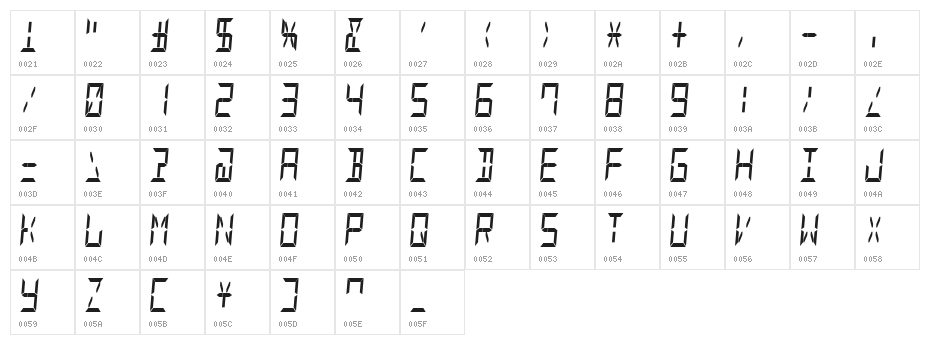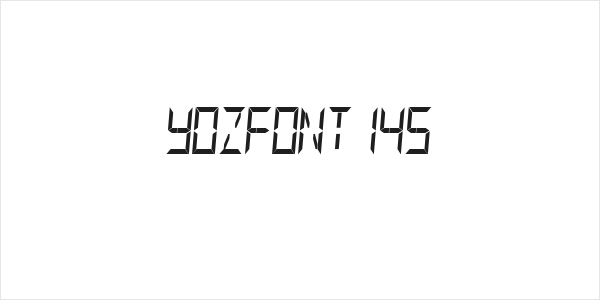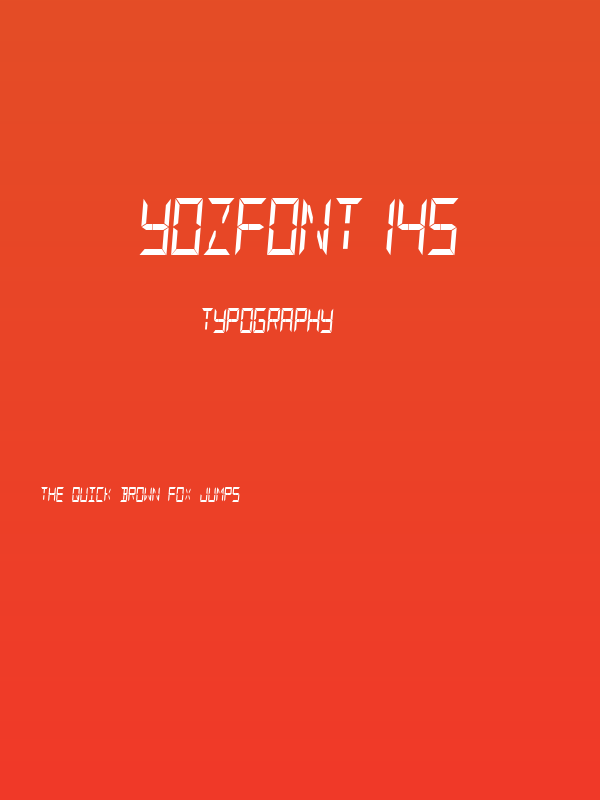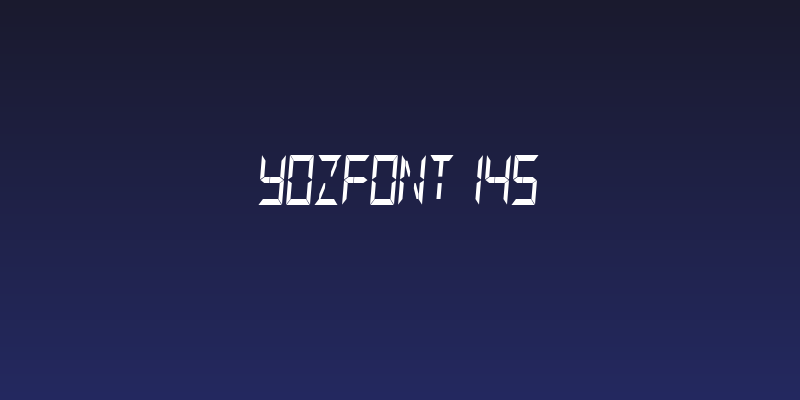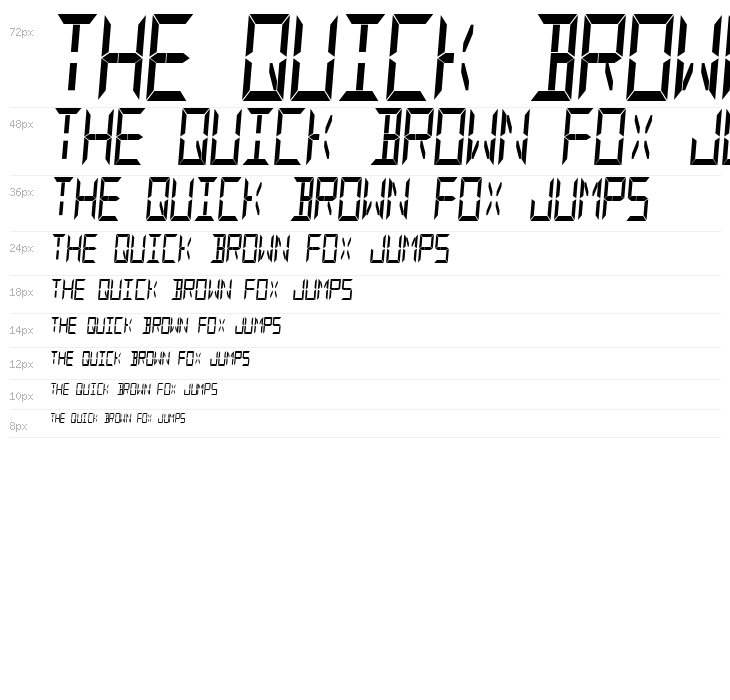
YOzFont14s Font
YOzFont14s Description
This font features a digital, segmented style reminiscent of LED or LCD displays. Each character is composed of angular, geometric shapes that mimic the appearance of digital clocks or calculators. The design is highly structured, with a futuristic and technical aesthetic. The uppercase and lowercase letters share a similar style, maintaining consistency across the alphabet. Numbers and special characters are also designed in this segmented manner, ensuring a cohesive look throughout. This font is ideal for projects that require a modern, tech-inspired appearance.
| Use Case | Headlines, Logos, Digital displays |
| Proposed Projects | Ideal for digital displays, tech-themed posters, video game interfaces, and futuristic branding. |